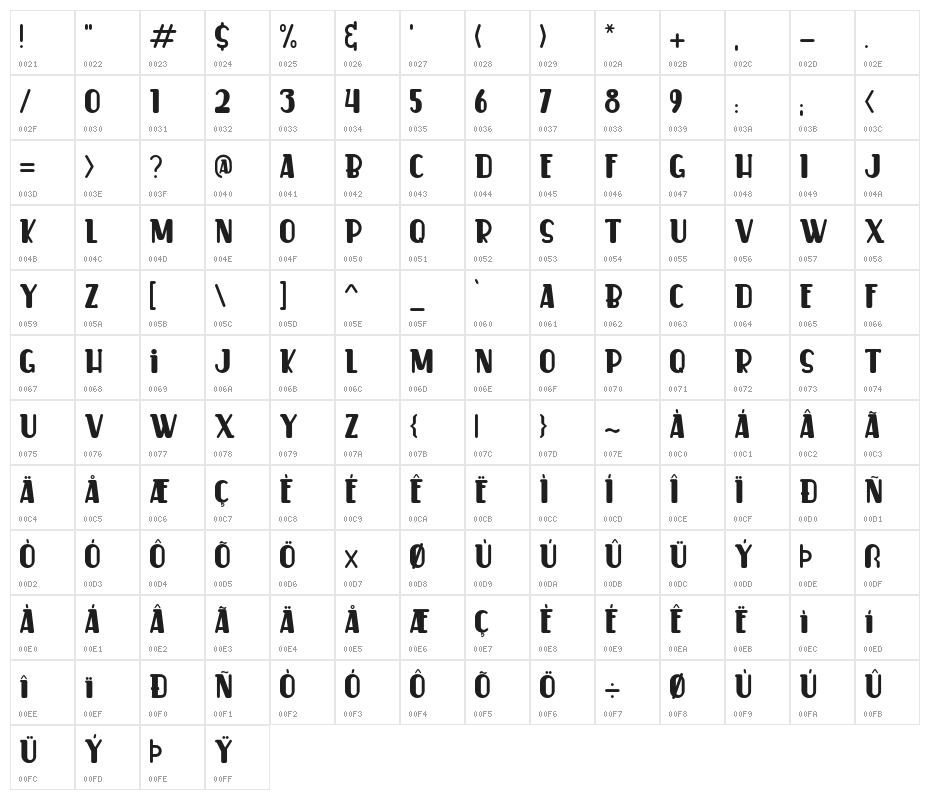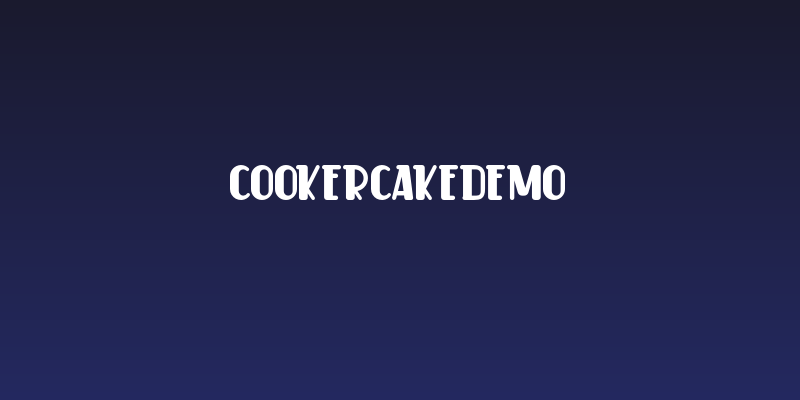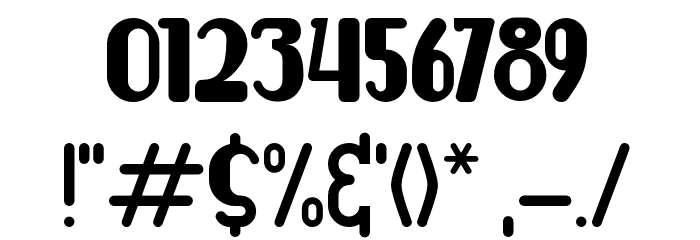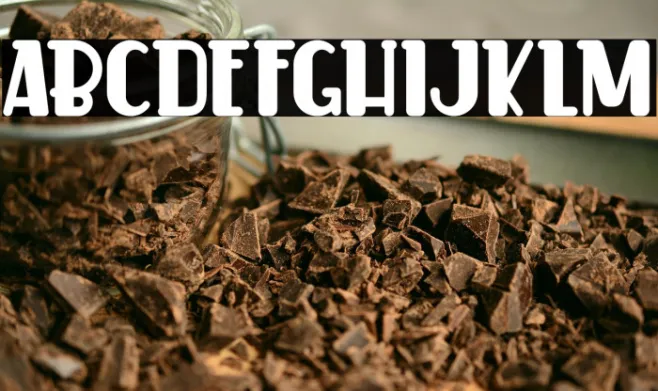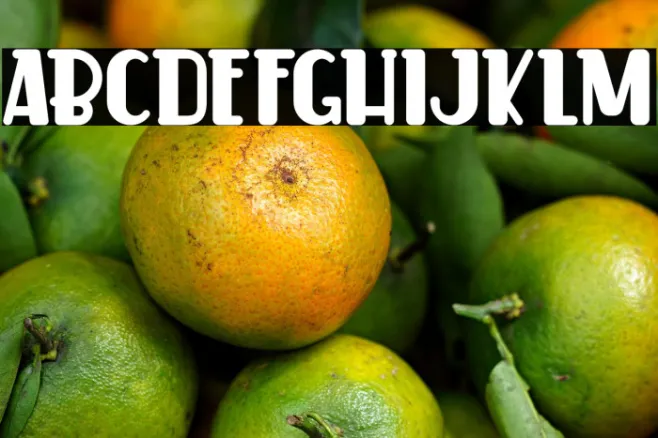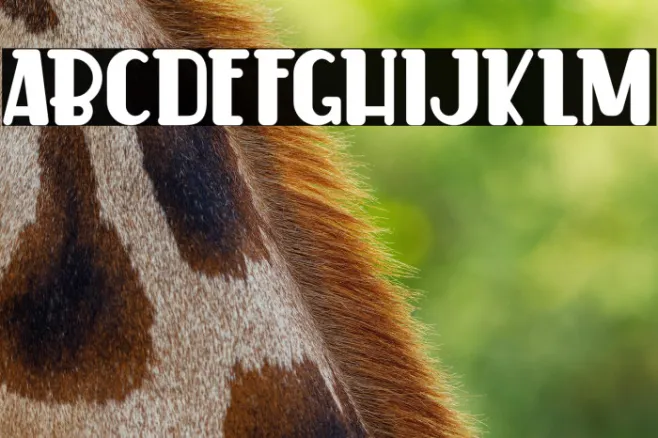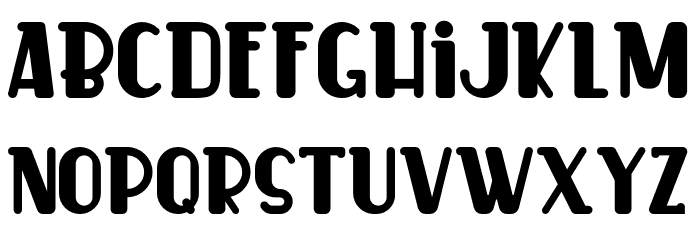
CookerCakeDemo Font
CookerCakeDemo Description
This font features a bold and playful style with rounded edges and a slightly condensed form. The uppercase and lowercase letters maintain a consistent width, giving it a uniform appearance. The numerals are equally bold, matching the overall aesthetic of the alphabet. Special characters are designed with the same playful curves, making them blend seamlessly with the letters and numbers. The font's thick strokes and rounded terminals give it a friendly and approachable feel, suitable for a variety of creative projects.
| Overall Style | Playful, Modern |
| Proposed Projects | Ideal for children's books, playful branding, posters, and packaging design. |